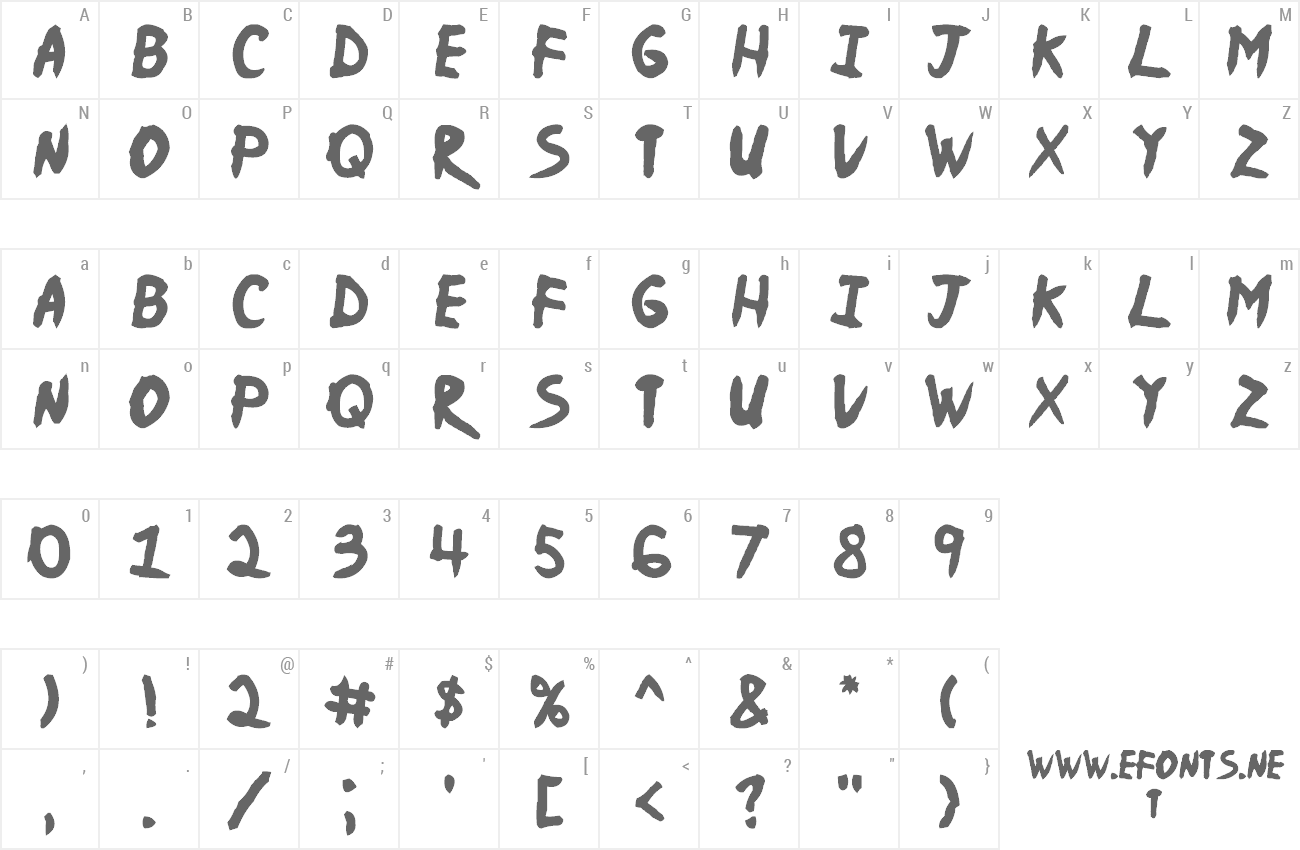
Ninja Naruto Font - Download ninja naruto font · free for commercial use · this font is based on the logo for the anime series naruto.use gimp, adobe photoshop, or paint shop pro to apply the necessary effects to.
Ninja Naruto Font Free For Personal Commercial Modification Allowed Redistribution Allowed - Ninja naruto has 2 sets of lower cases to give some variation and a more natural feel to your letters along.
Ninja Naruto Font Urbanfonts Com - Here we're introducing the ninja naruto font.